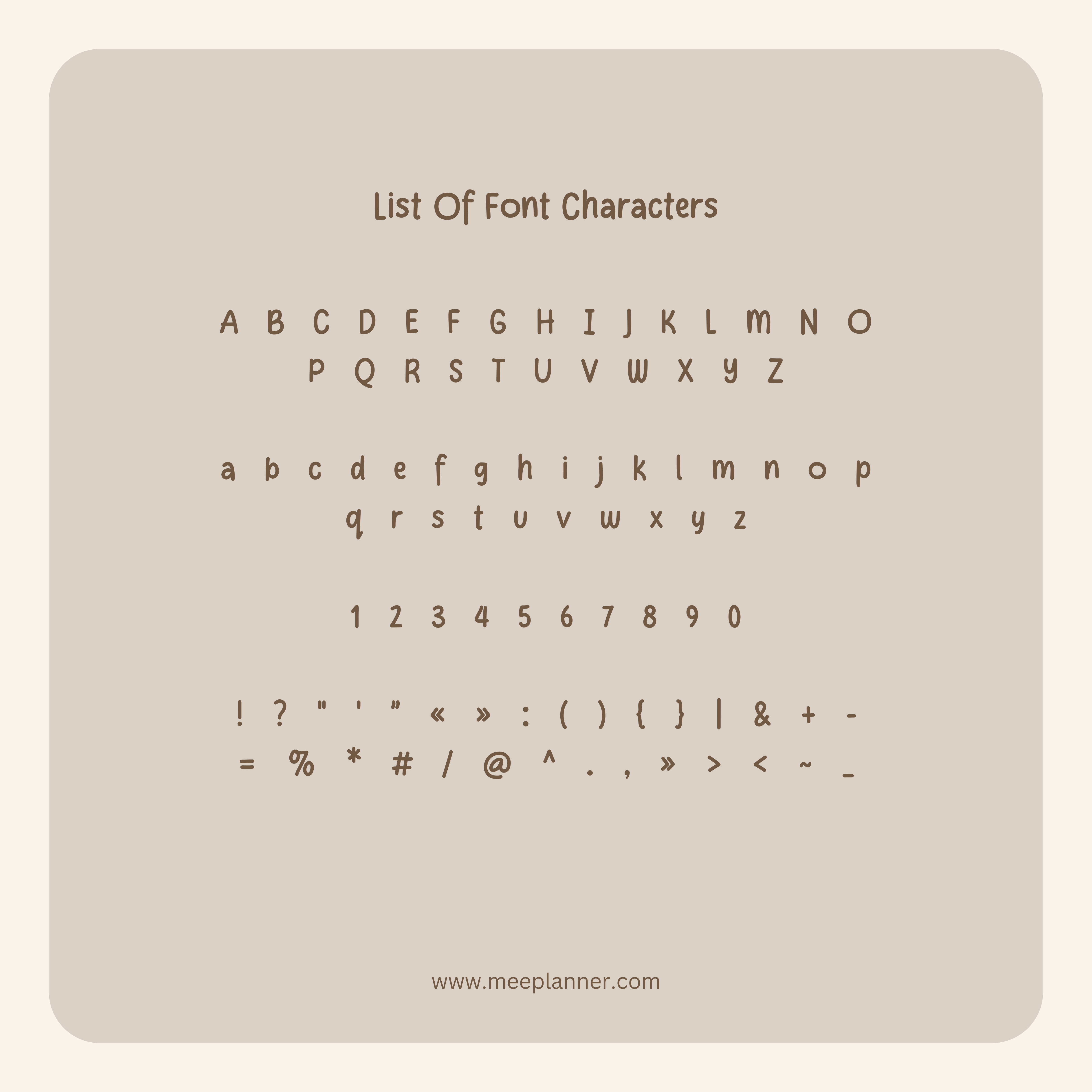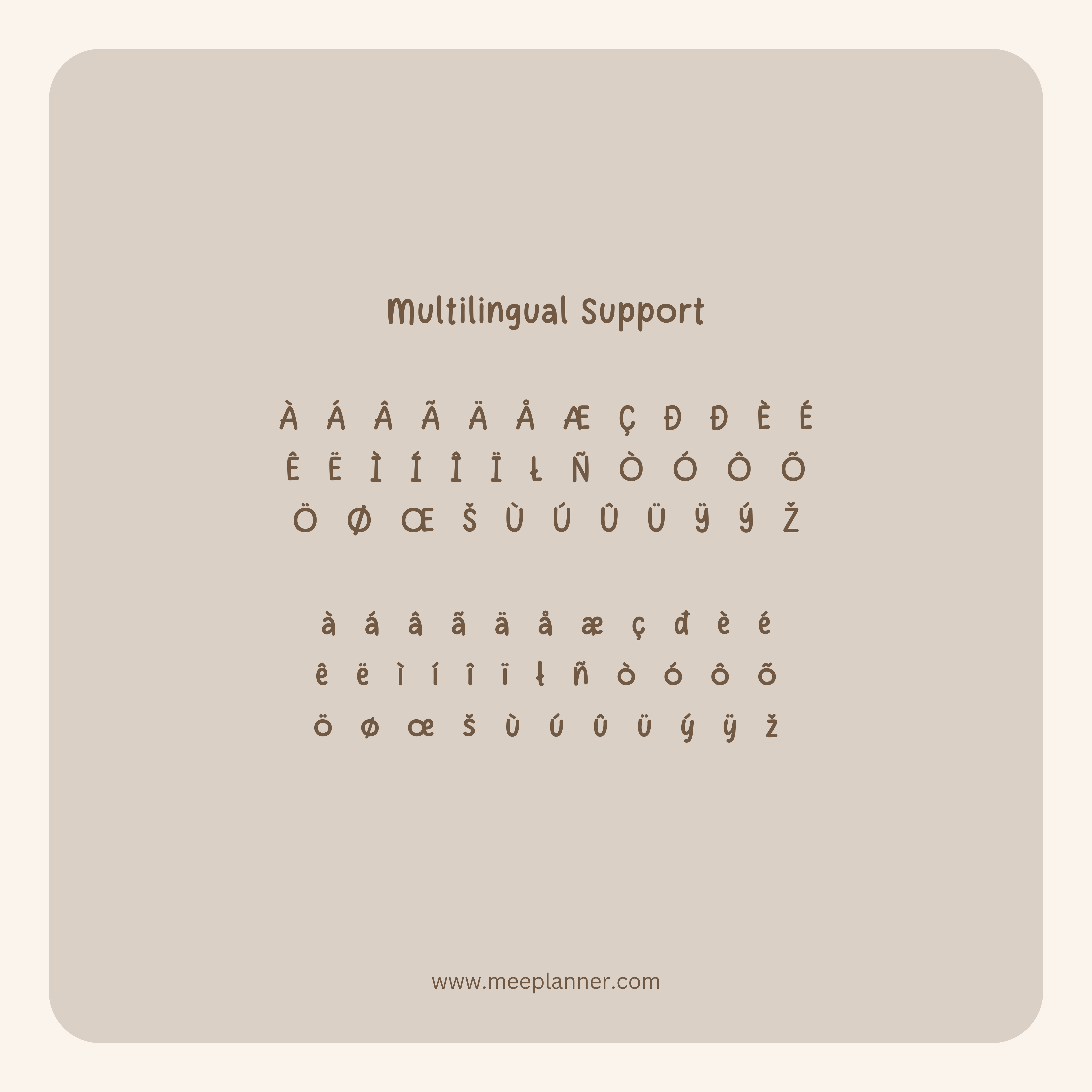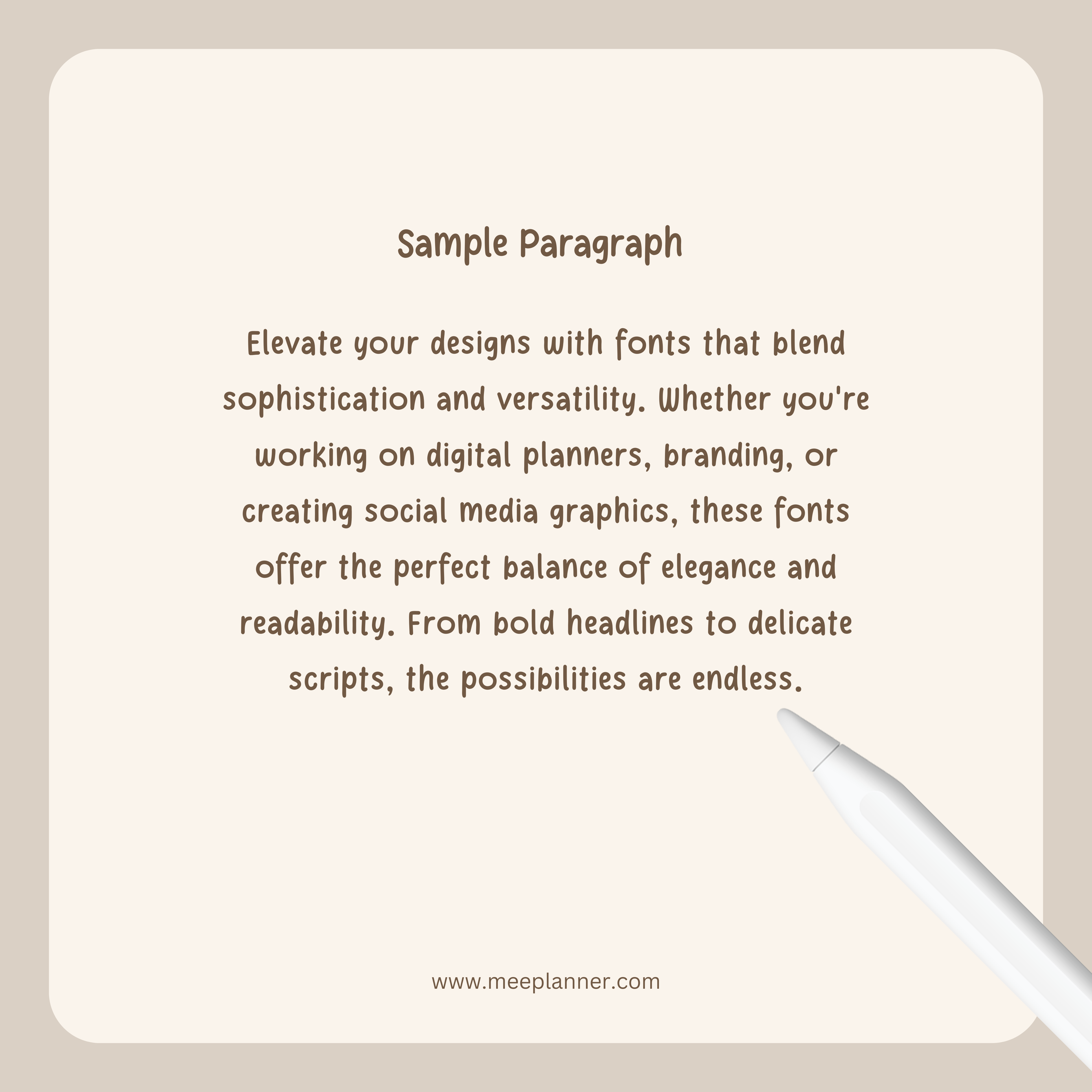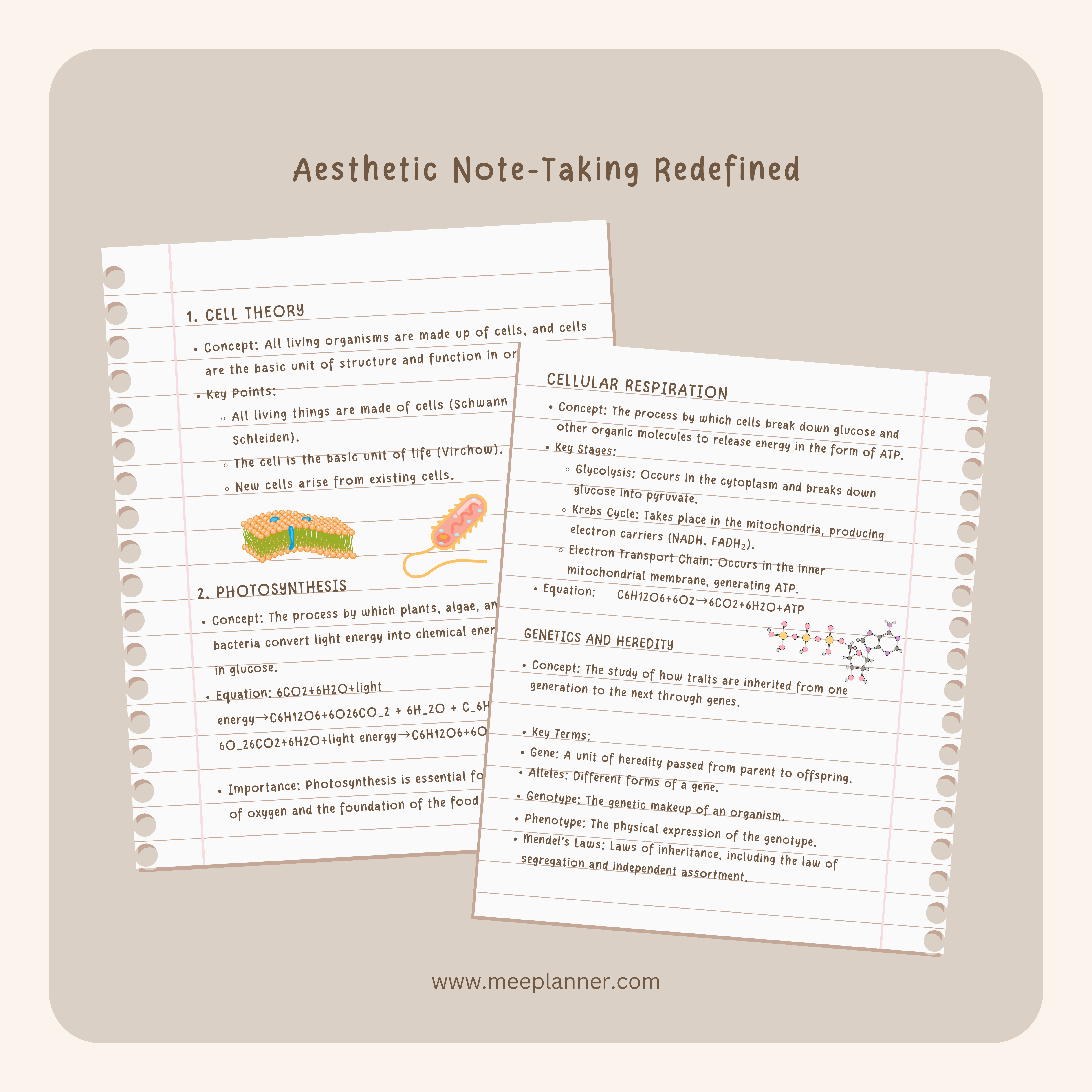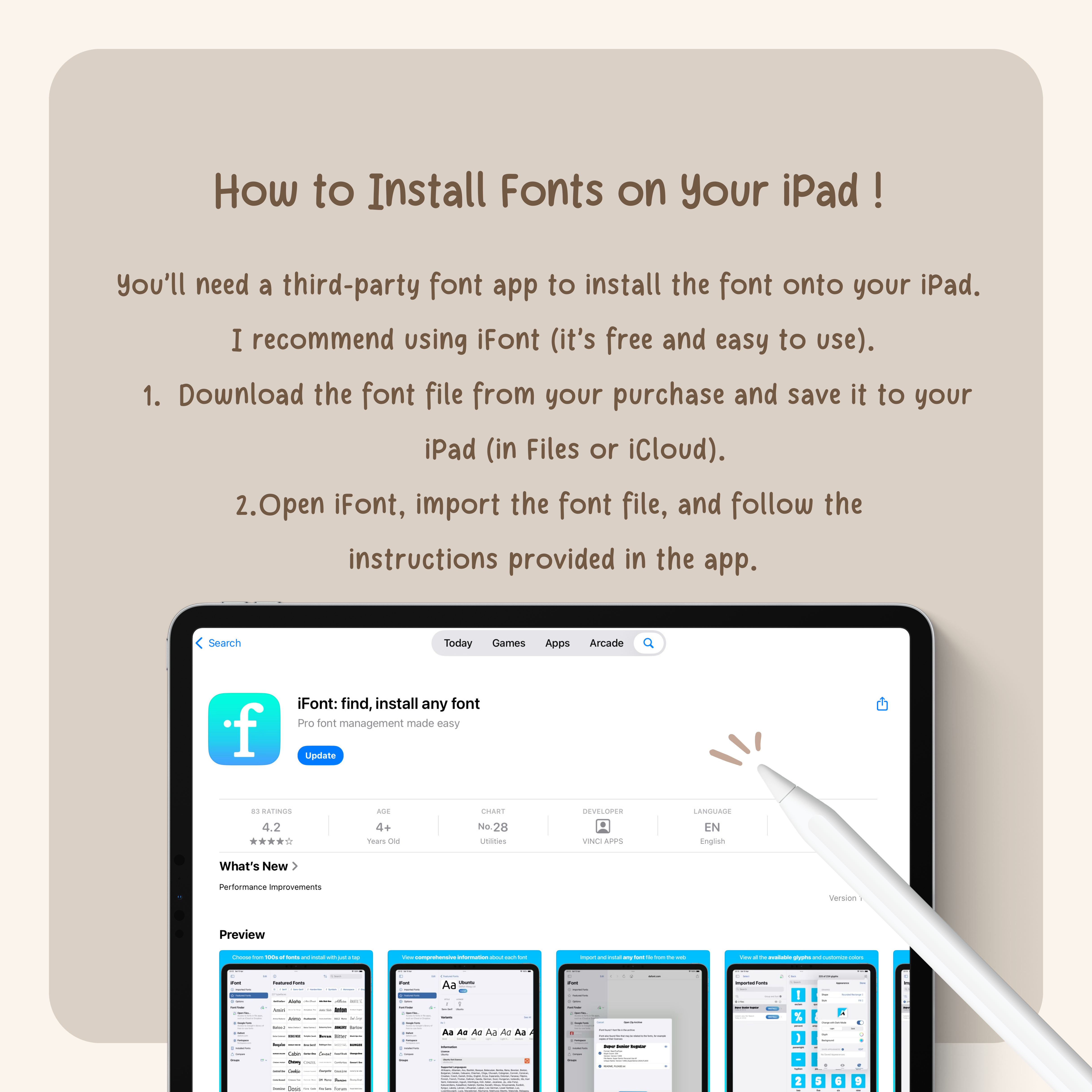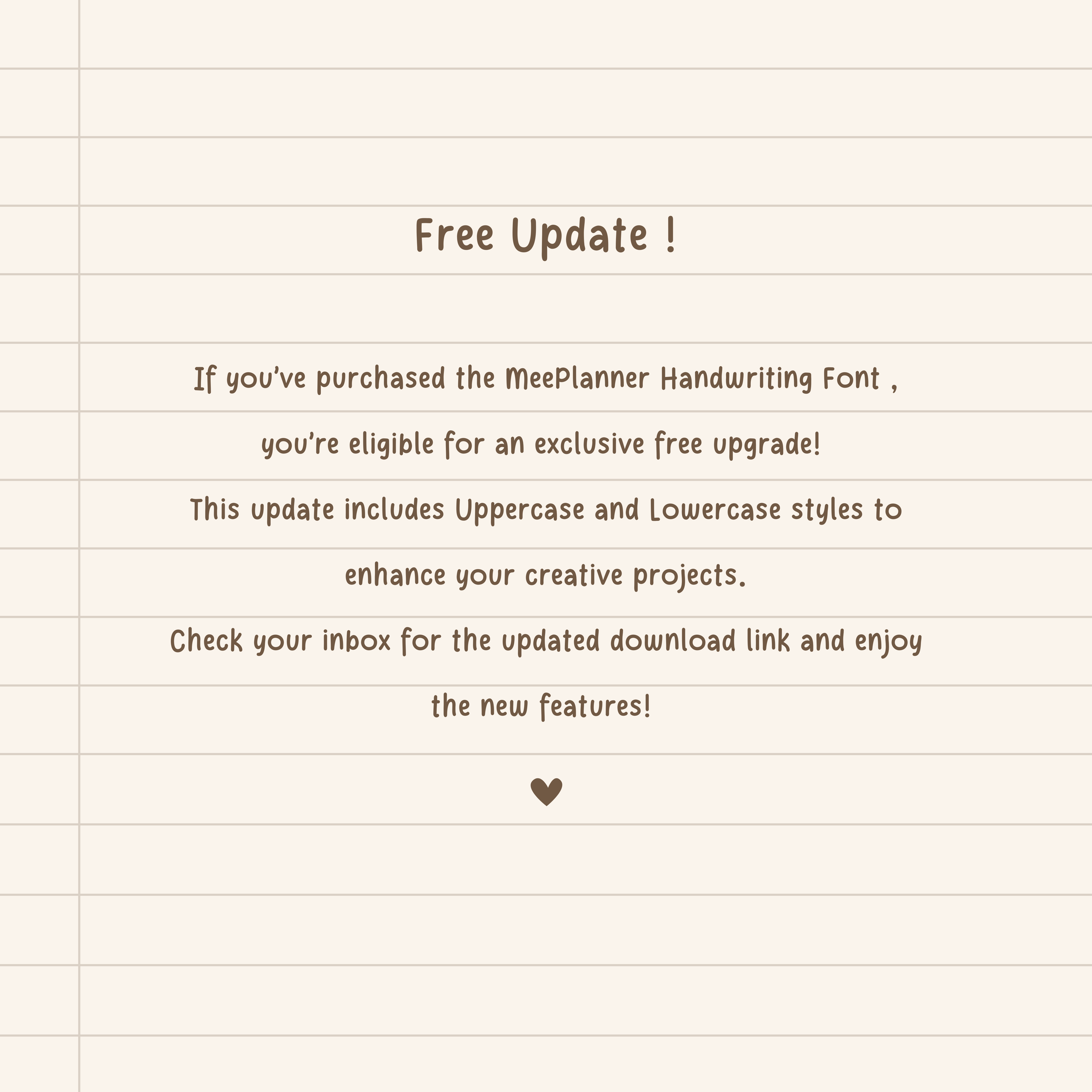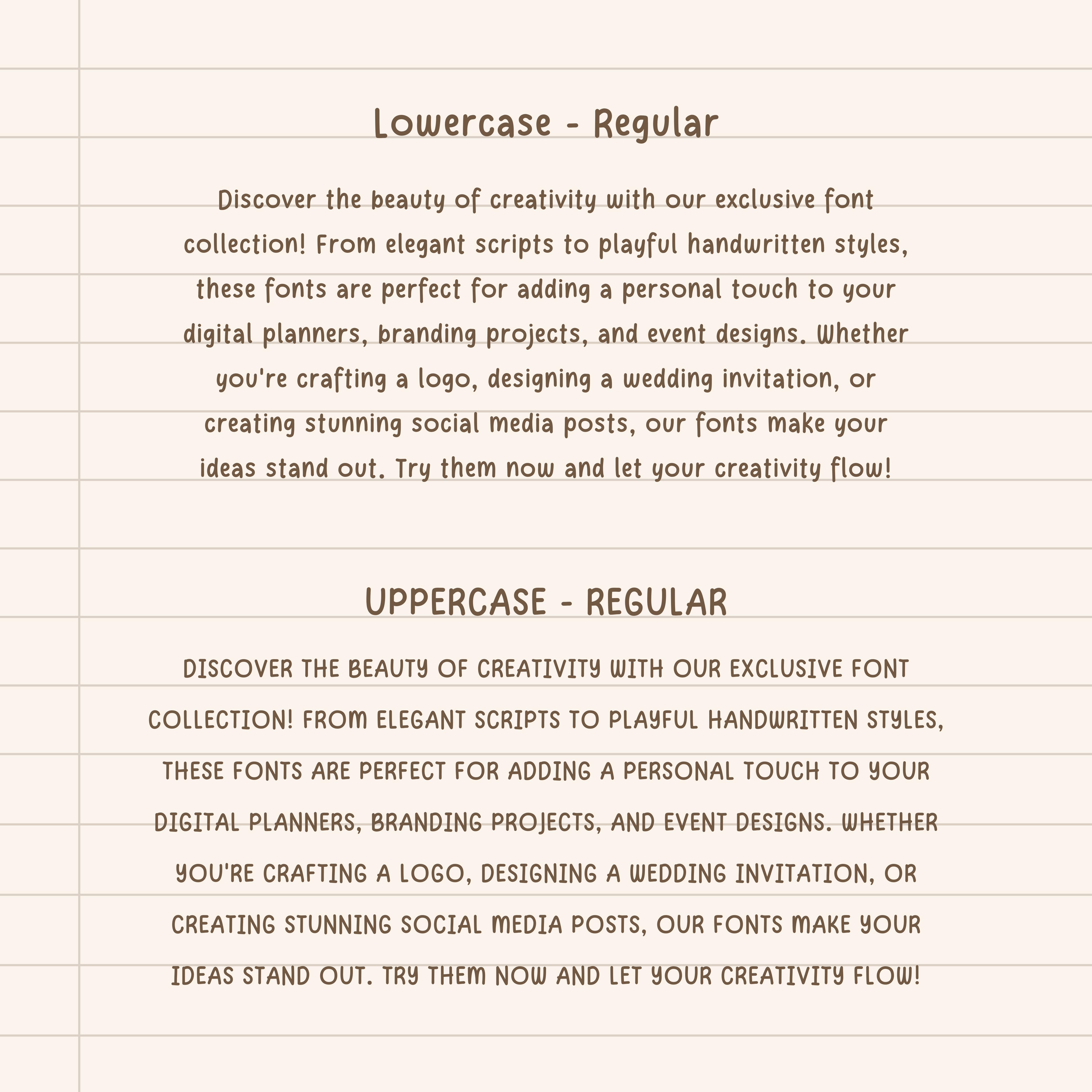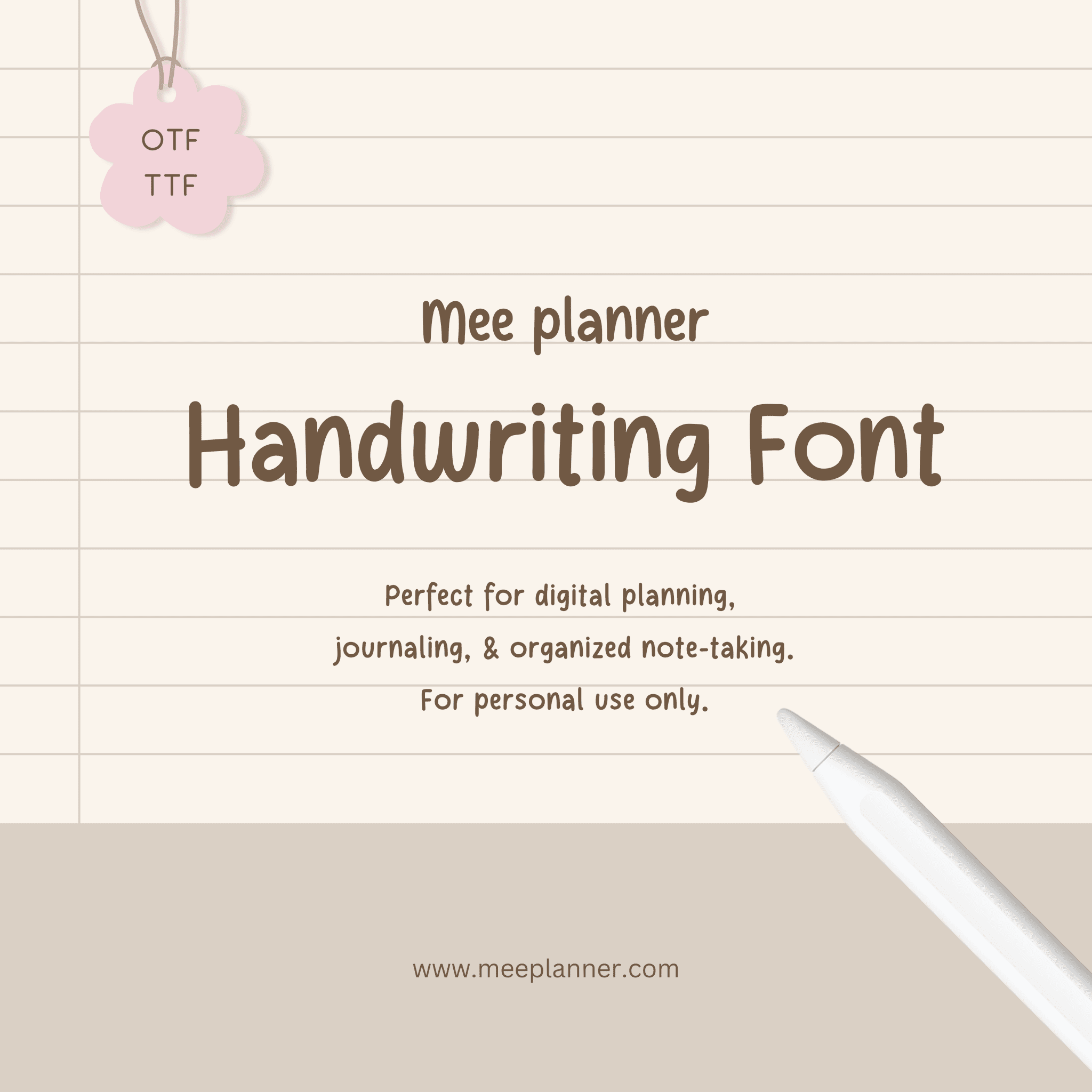
Create beautiful, personalized content
Looking to elevate your creative projects? Our Aesthetic Handwriting Font offers the perfect blend of elegance and uniqueness. Whether designing invitations or creating social media posts, this font ensures that your words stand out with personality and flair. Enjoy crafting visually appealing content effortlessly.
Versatile style for various uses
This font adapts seamlessly across different applications. Ideal for print and digital media, it fits perfectly in journals, logos, and banners alike. Its clean yet artistic style allows you to maintain professionalism while adding a touch of creativity. This versatility makes it suitable for diverse needs.
Aesthetic Handwriting Font